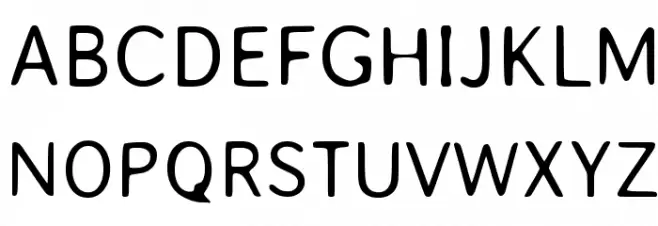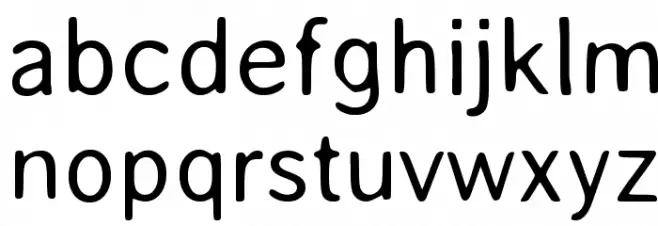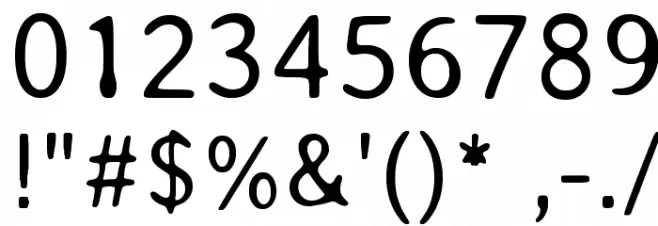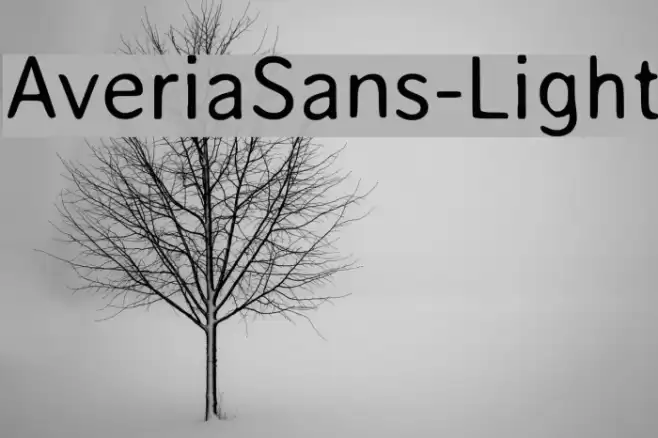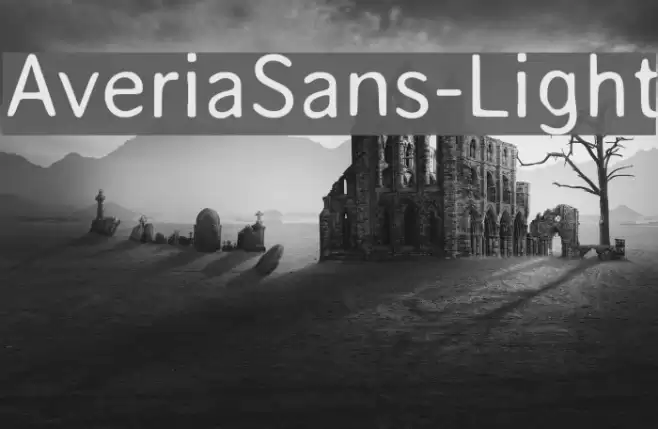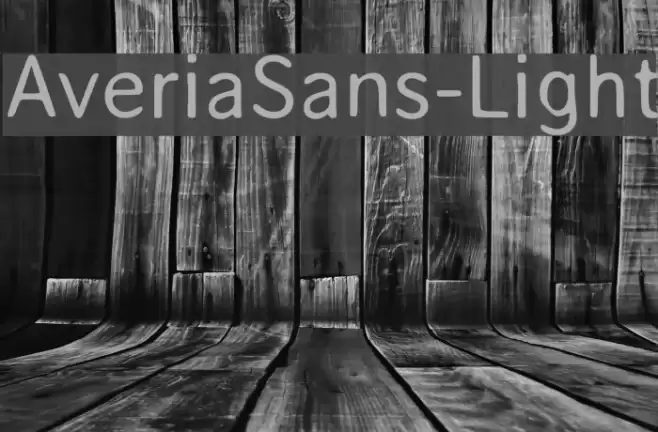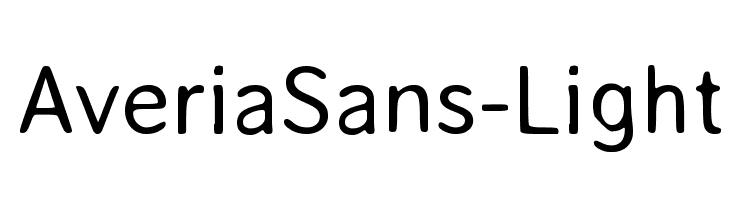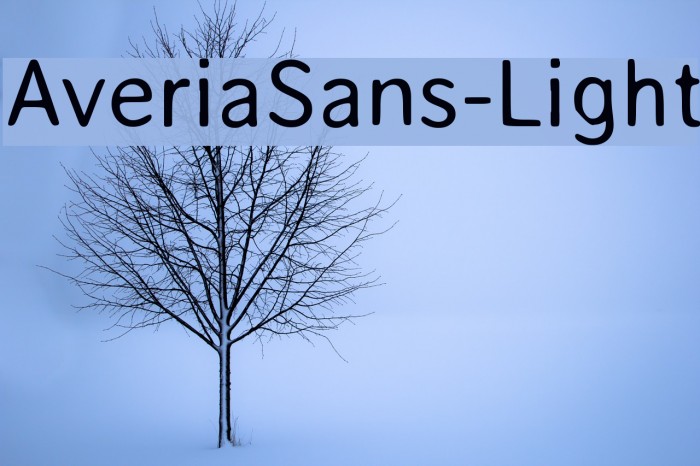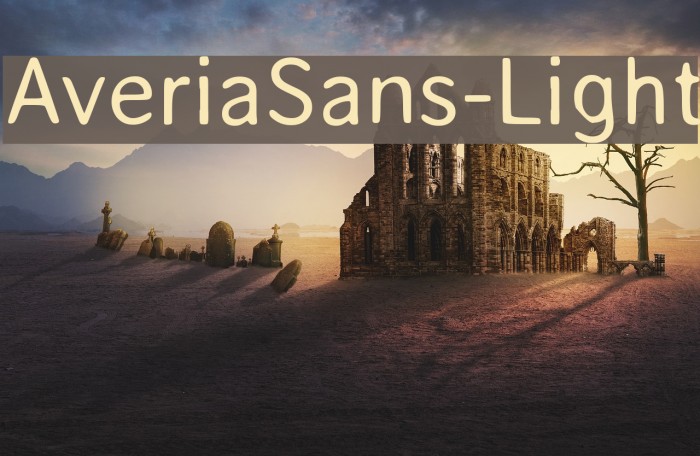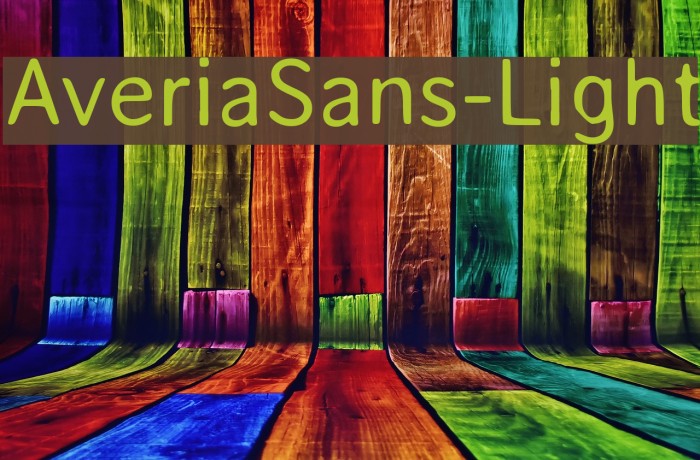
AveriaSans-Light
This font features a smooth and rounded sans-serif style, characterized by its gentle curves and uniform stroke width. The letters have a friendly and approachable appearance, making it suitable for a wide range of applications. The lowercase letters are slightly taller than typical, enhancing readability. The numerals are clear and distinct, with a consistent height that matches the uppercase letters. Special characters are well-integrated, maintaining the overall aesthetic of the font. The design is modern yet retains a touch of warmth, making it versatile for both digital and print media.
A smooth, rounded sans-serif font with a friendly and approachable style.
- Proposed Projects: Ideal for branding, web design, children's books, and user interfaces.